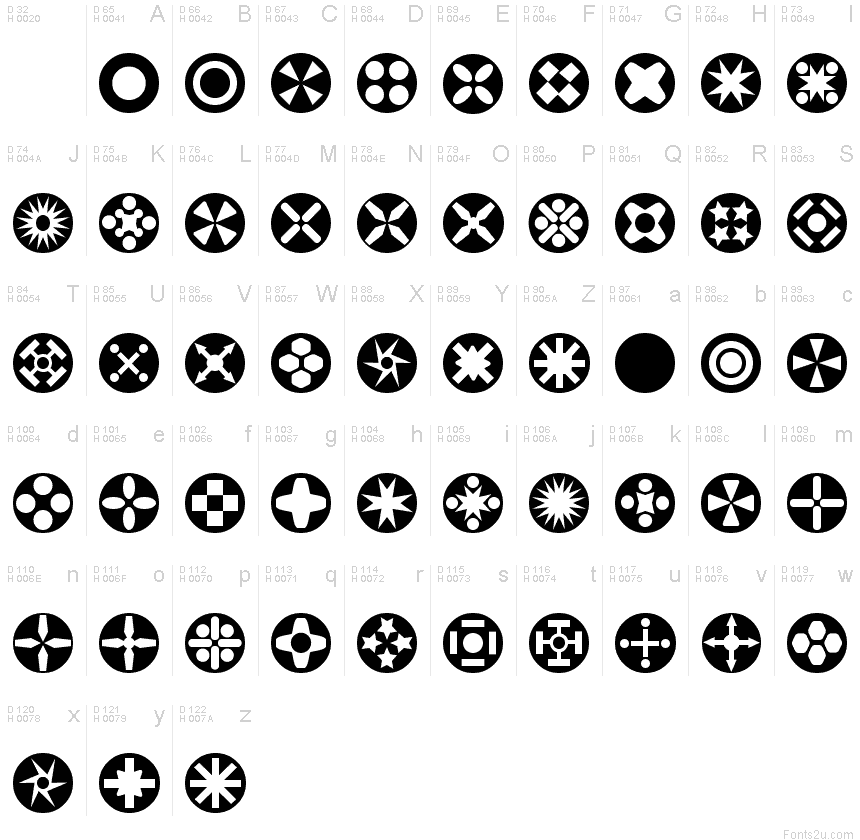
Circle Things
Circle Things font by fontsnthings.com is a free dingbat typeface that turns simple black circles into bold, graphic icons. Each glyph feels like a mini logo, with crisp white cutouts suggesting stars, wedges, and abstract symbols that pop hard against the dark background. The shapes feel tactile and punchy, making them easy to read even at small sizes while still holding strong visual impact when scaled up.
Using Circle Things, you can quickly build eye-catching badges, stickers, game tokens, buttons, section markers, and social graphics without drawing a single icon yourself. This free font shines on posters, zines, playful branding, or any layout that needs a compact symbol with attitude. Try pairing it with a clean sans serif for text and keep generous spacing around the icons so each circular mark has room to breathe.